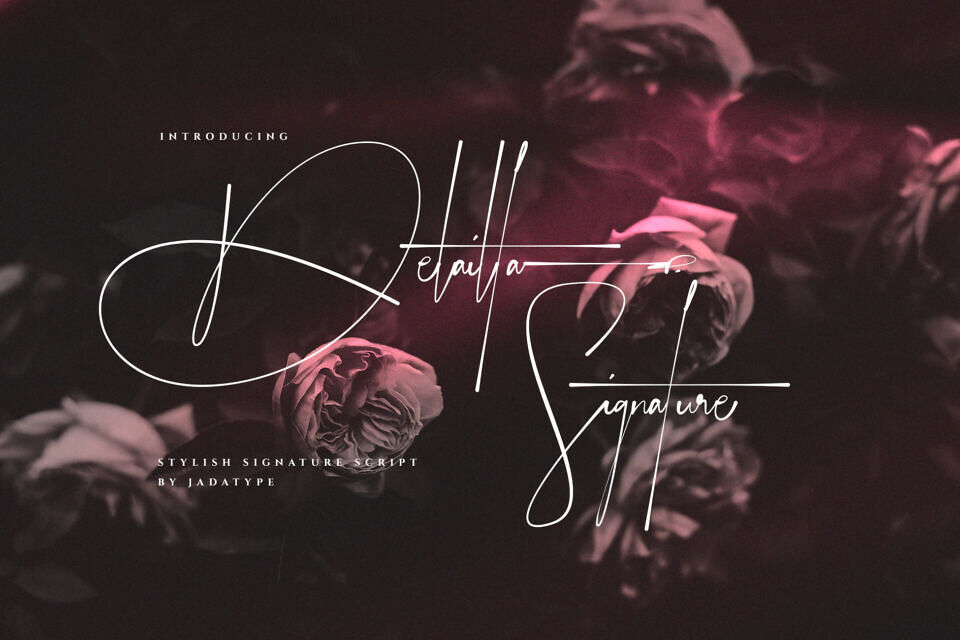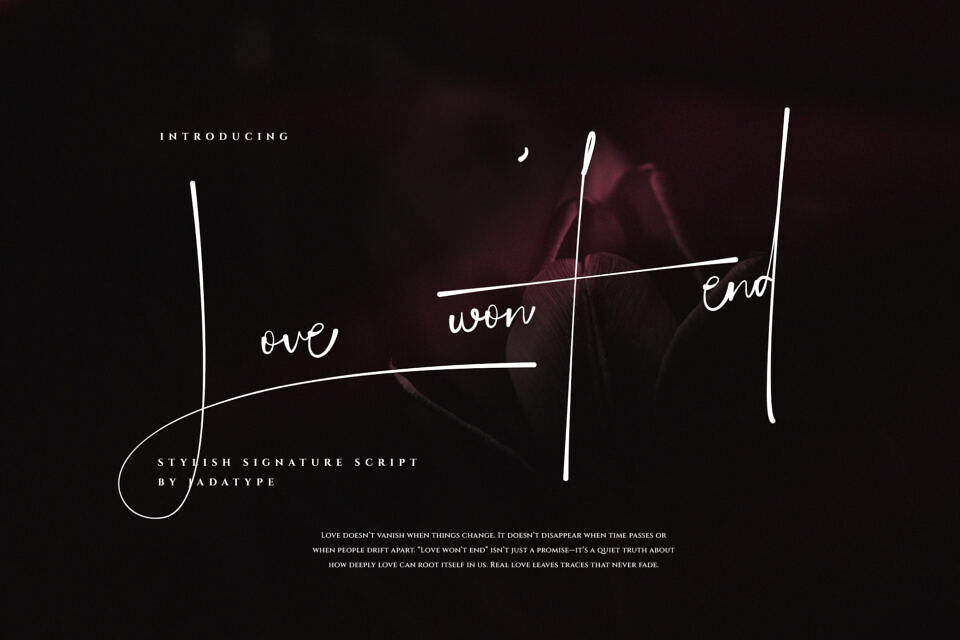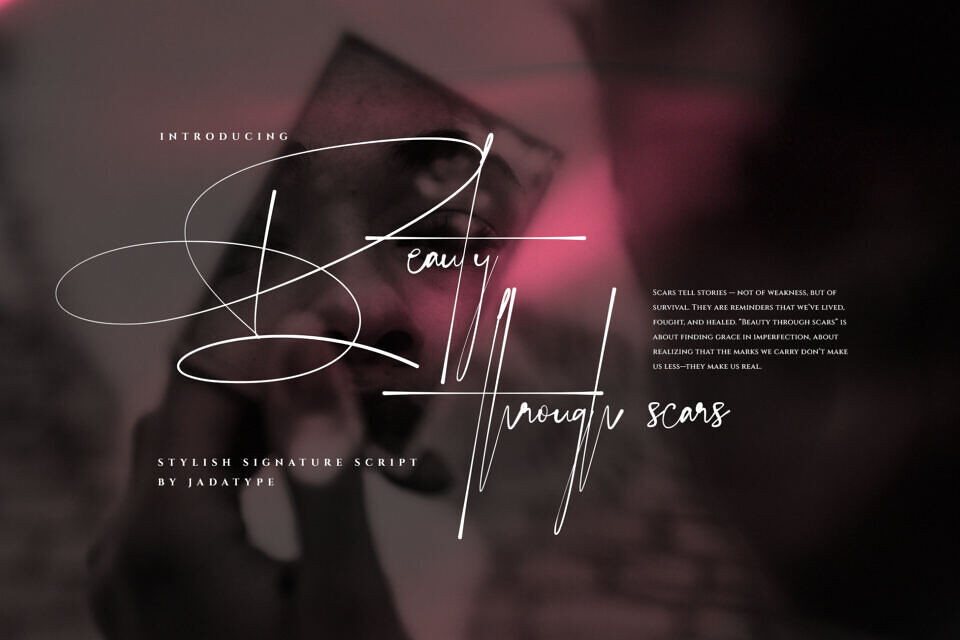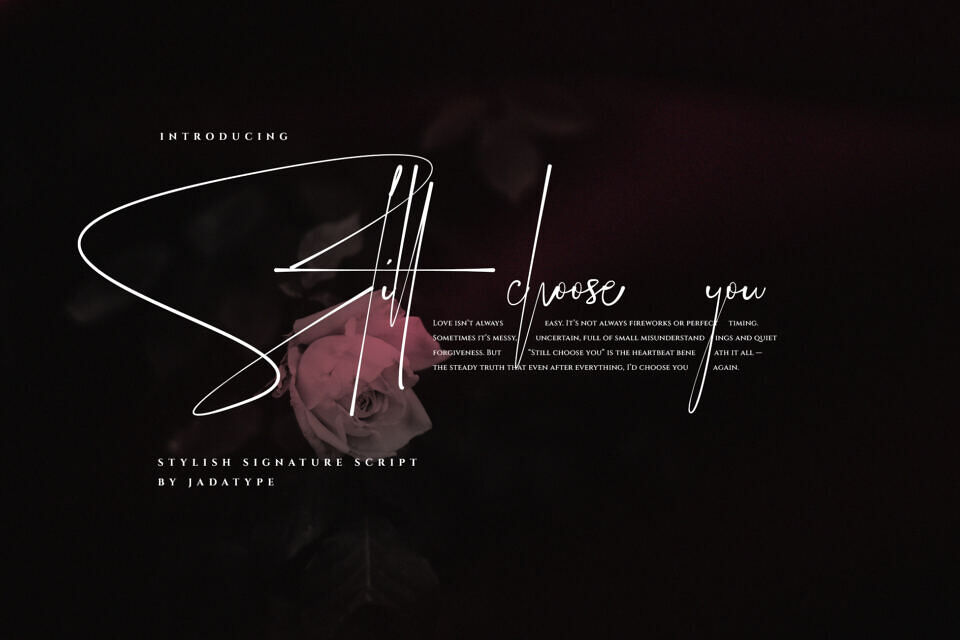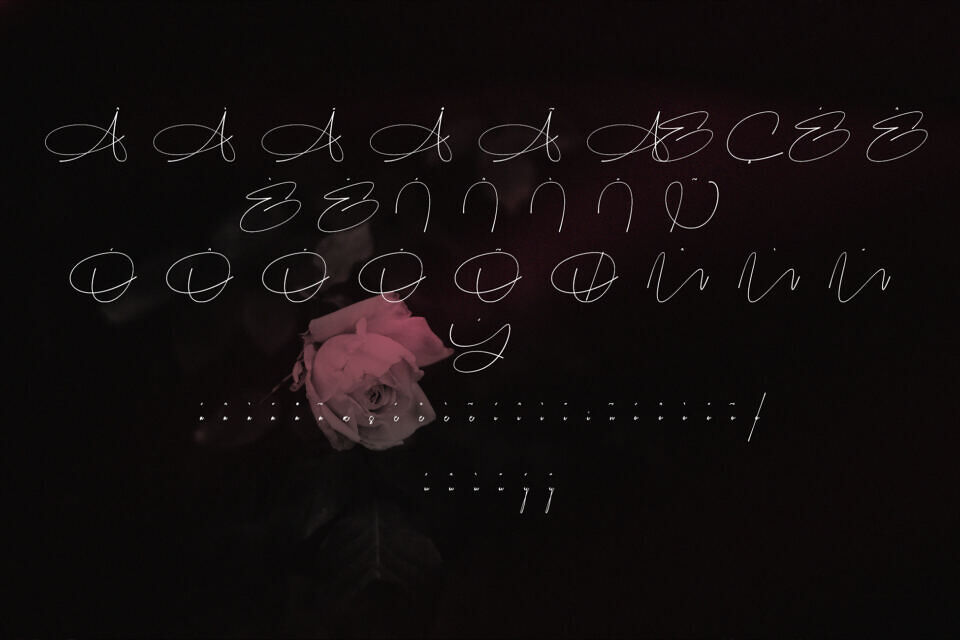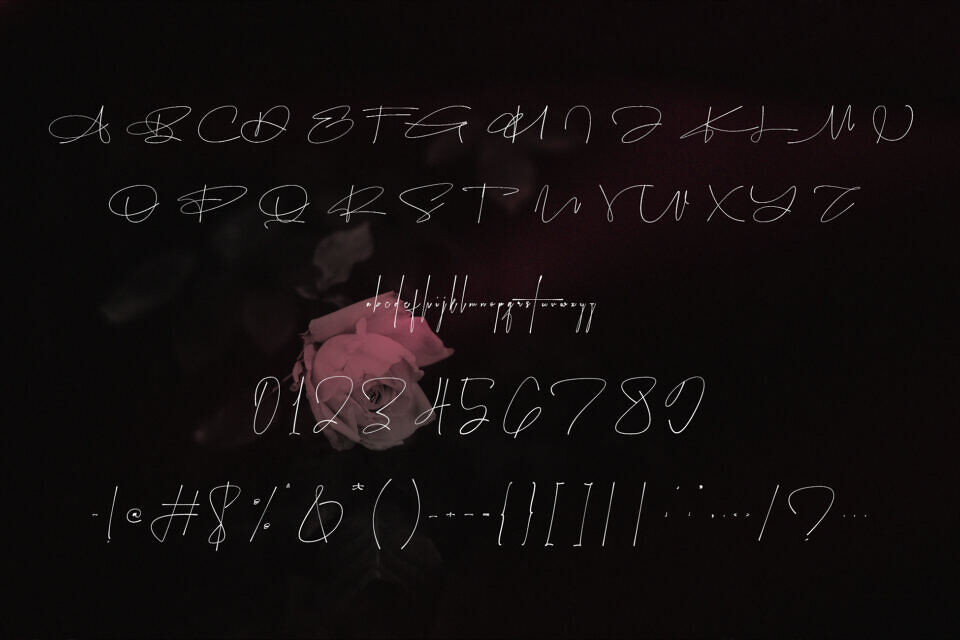
Delailta Signature is a script font that has a signature hand-lettering style. suitable for logotype, branding, social media, products, advertisements, and so on. contains standard English letters, numbers, punctuation, and several accents that support multilingualism.